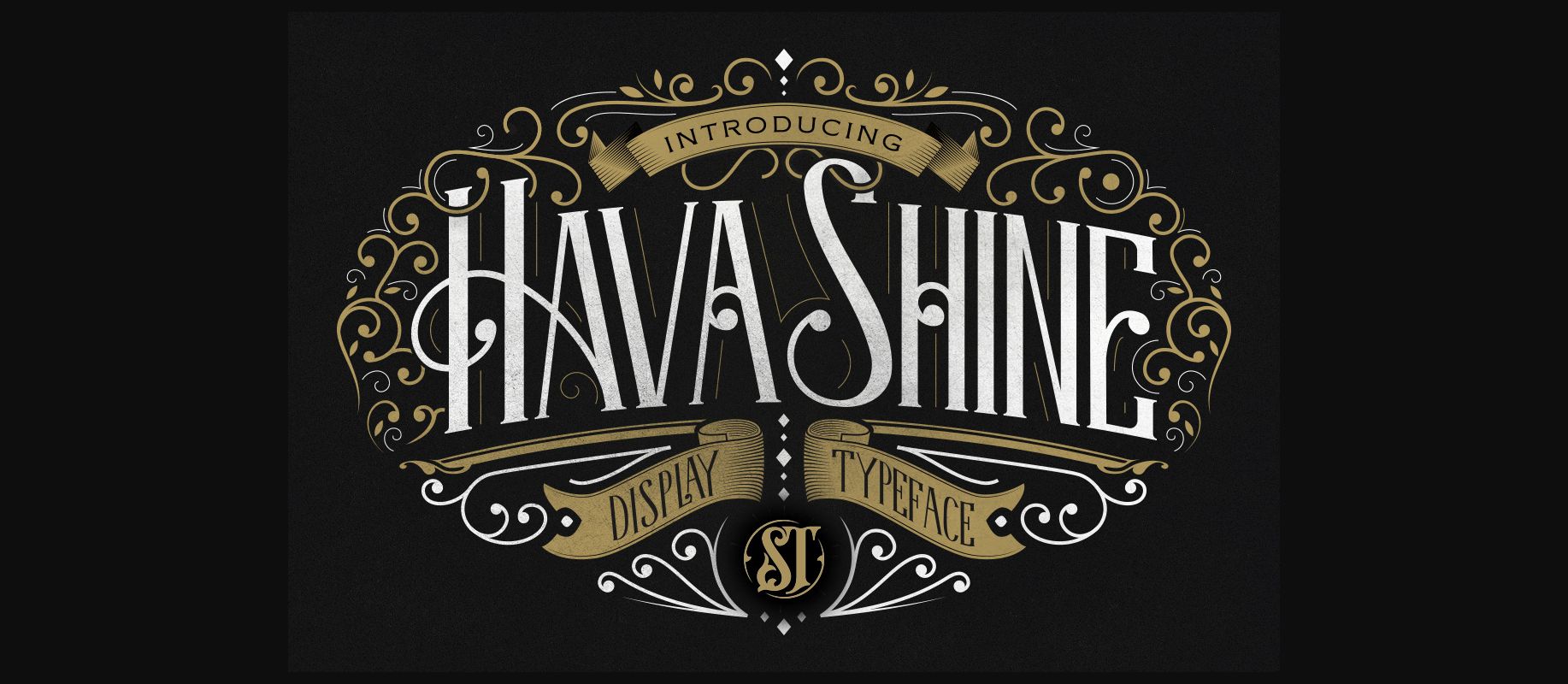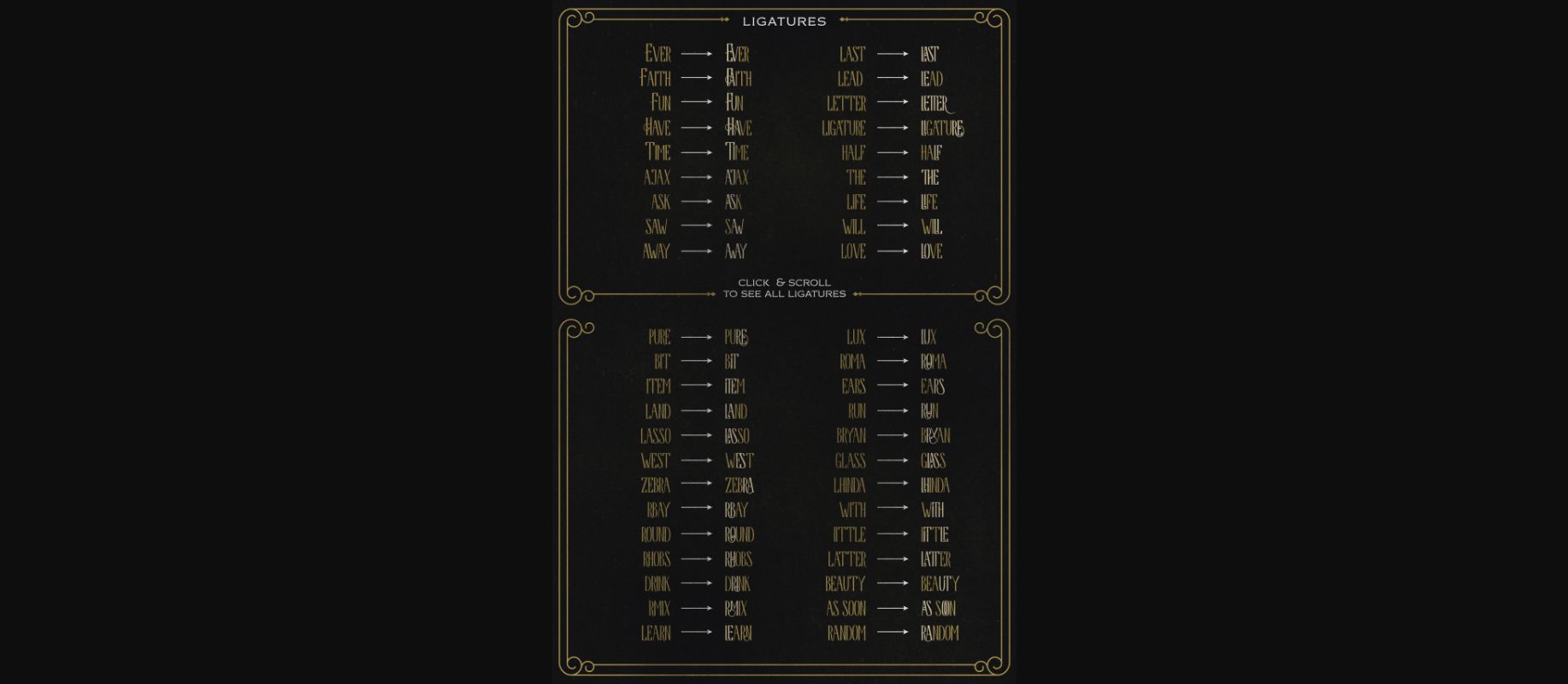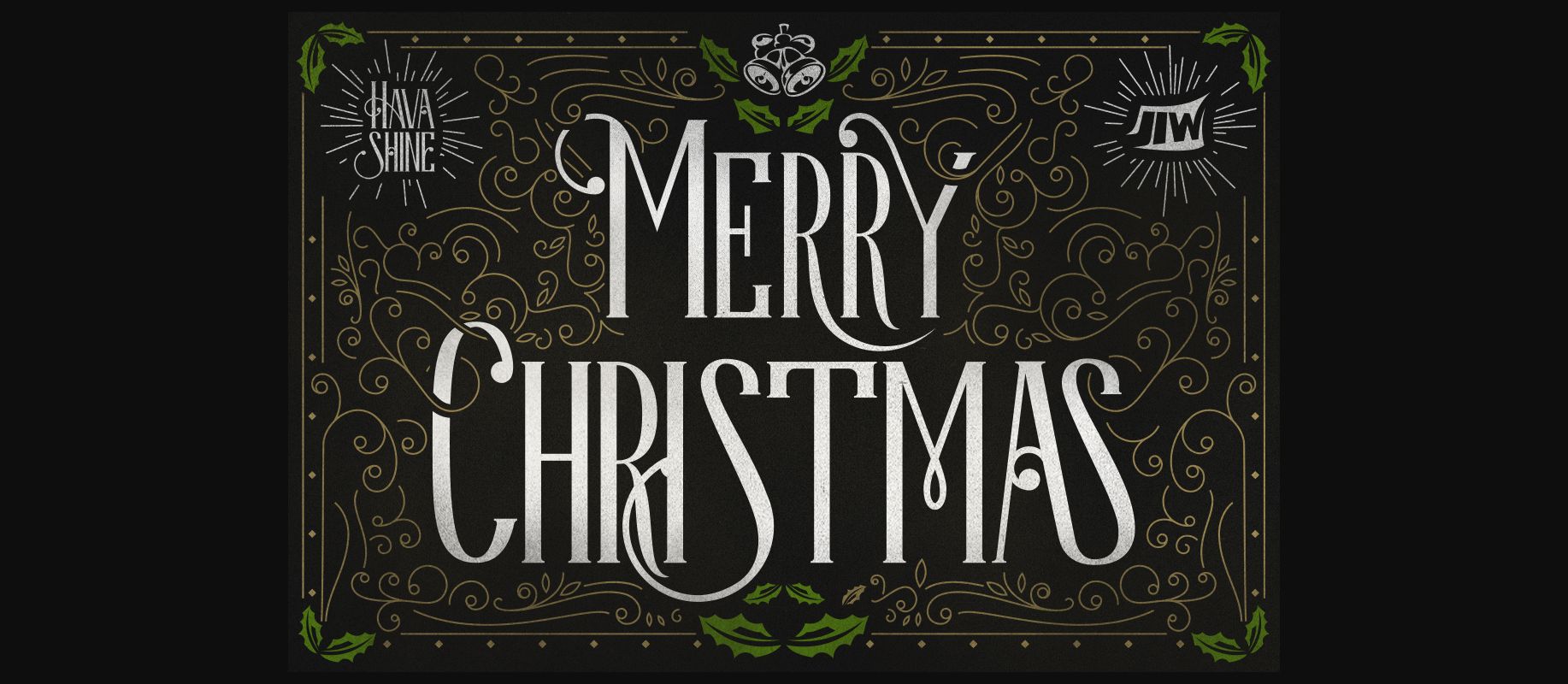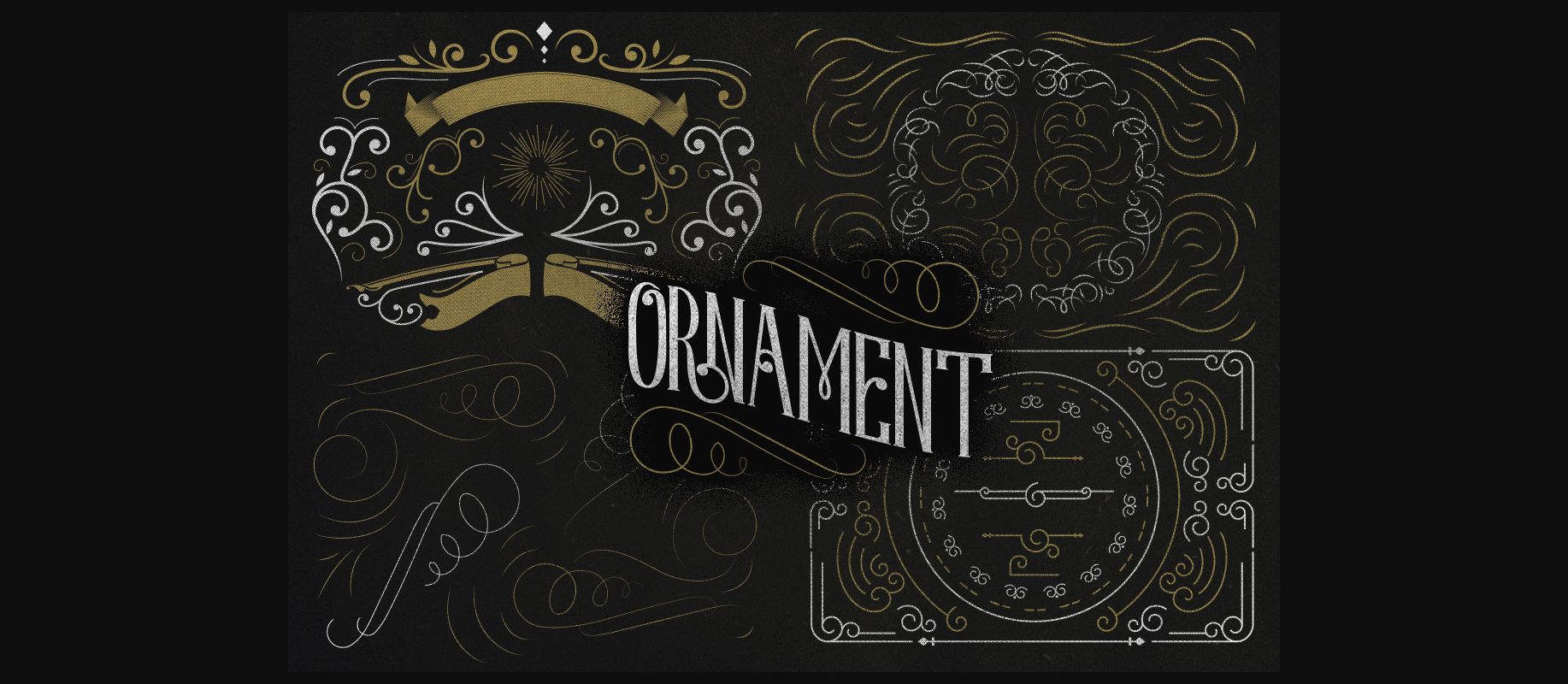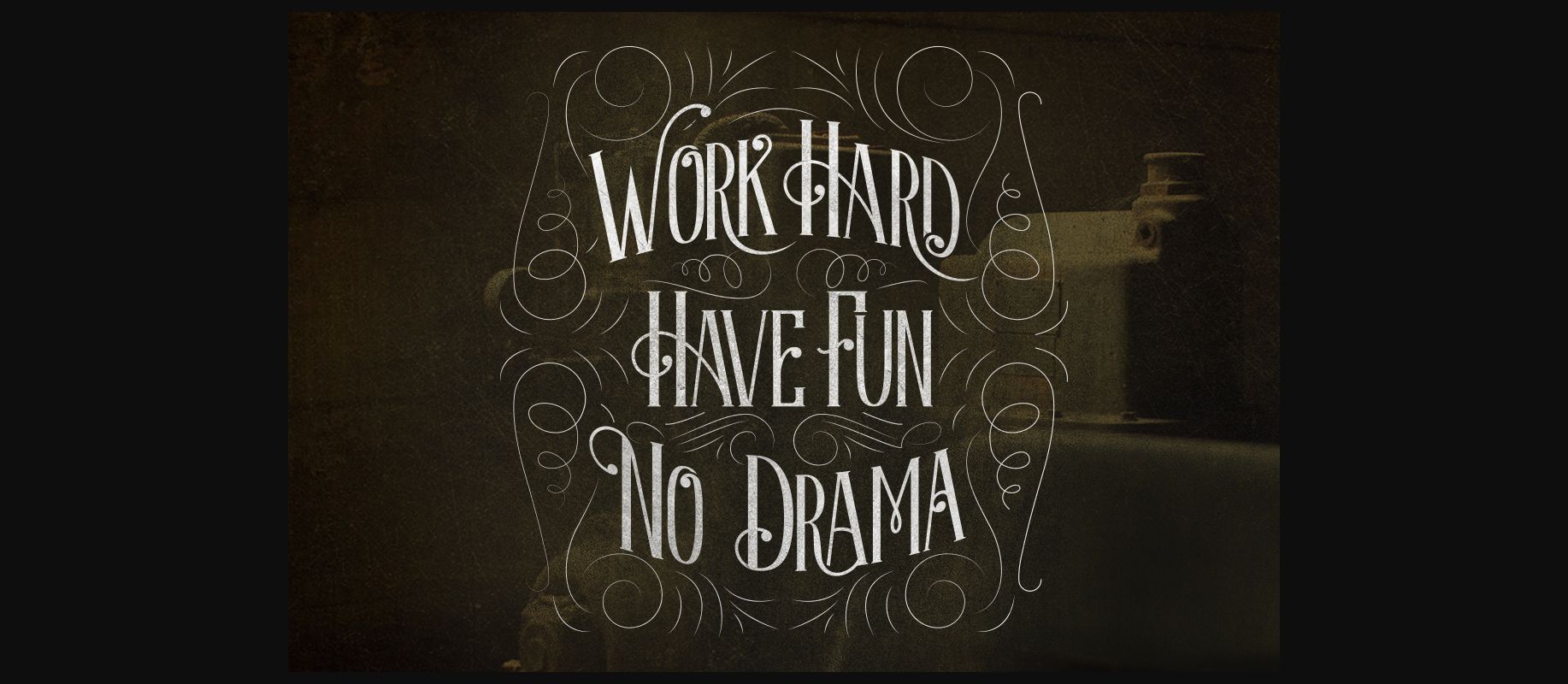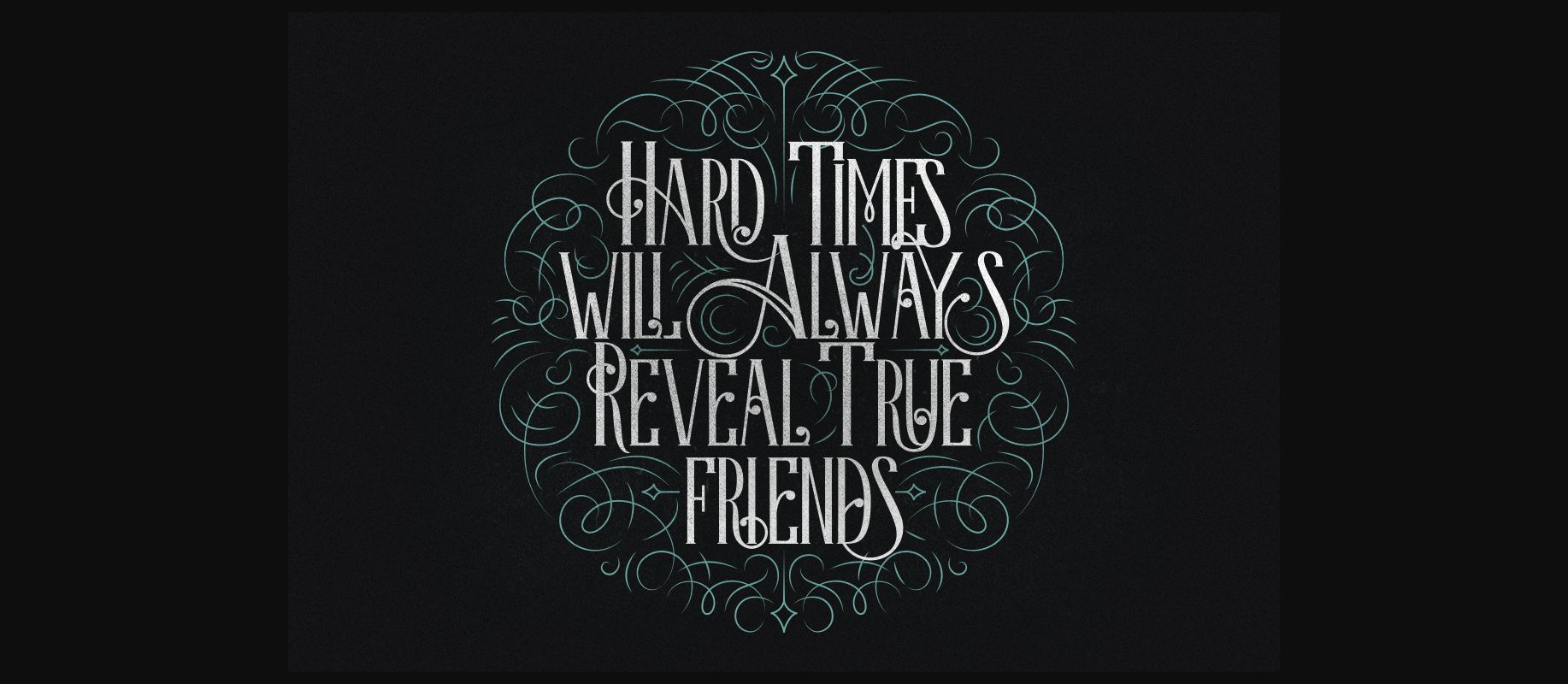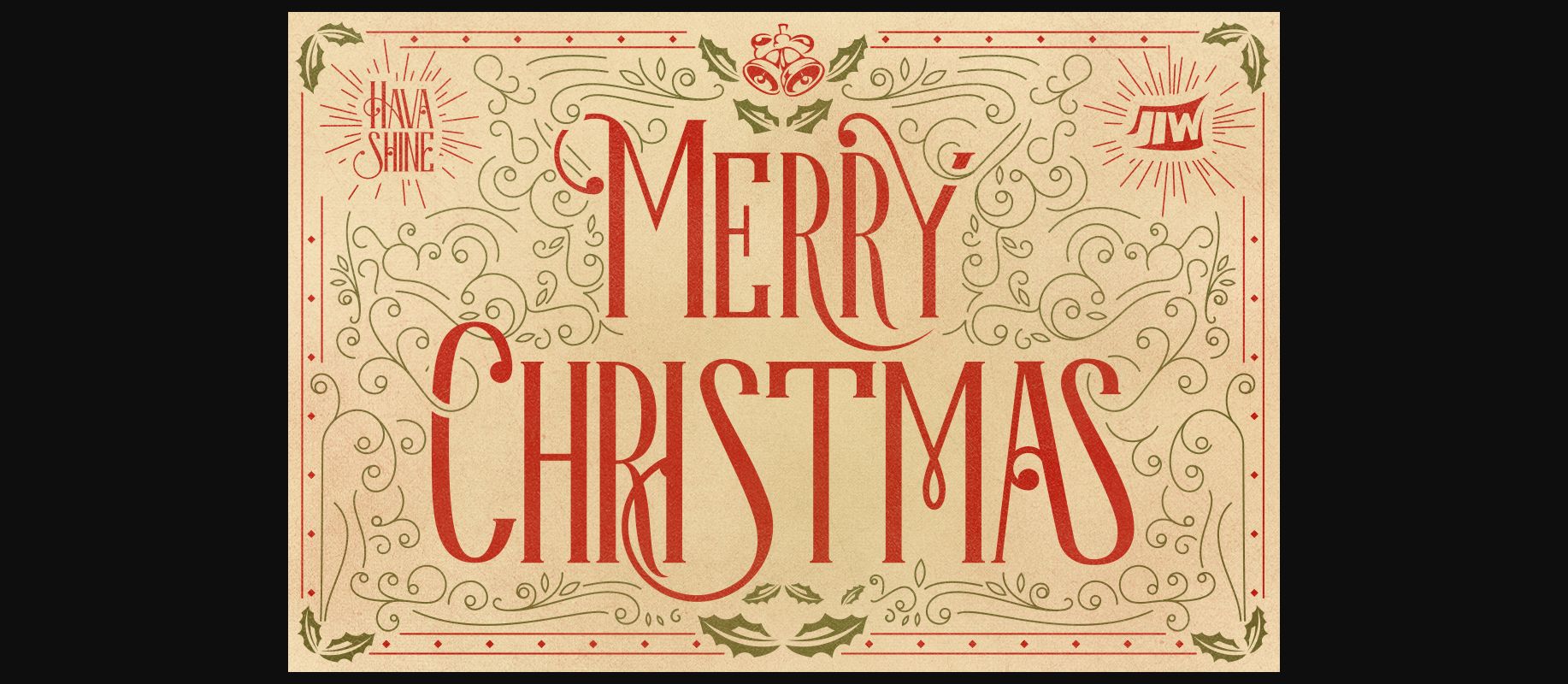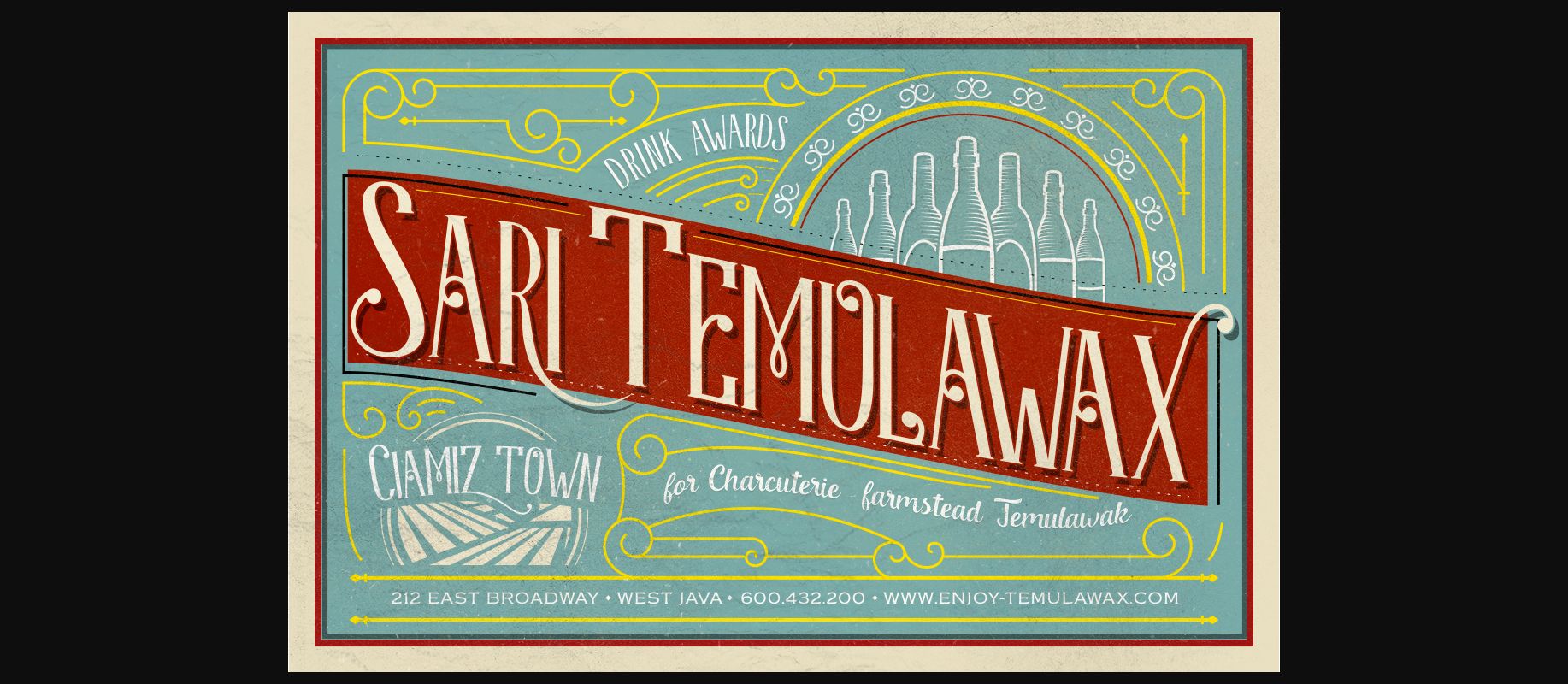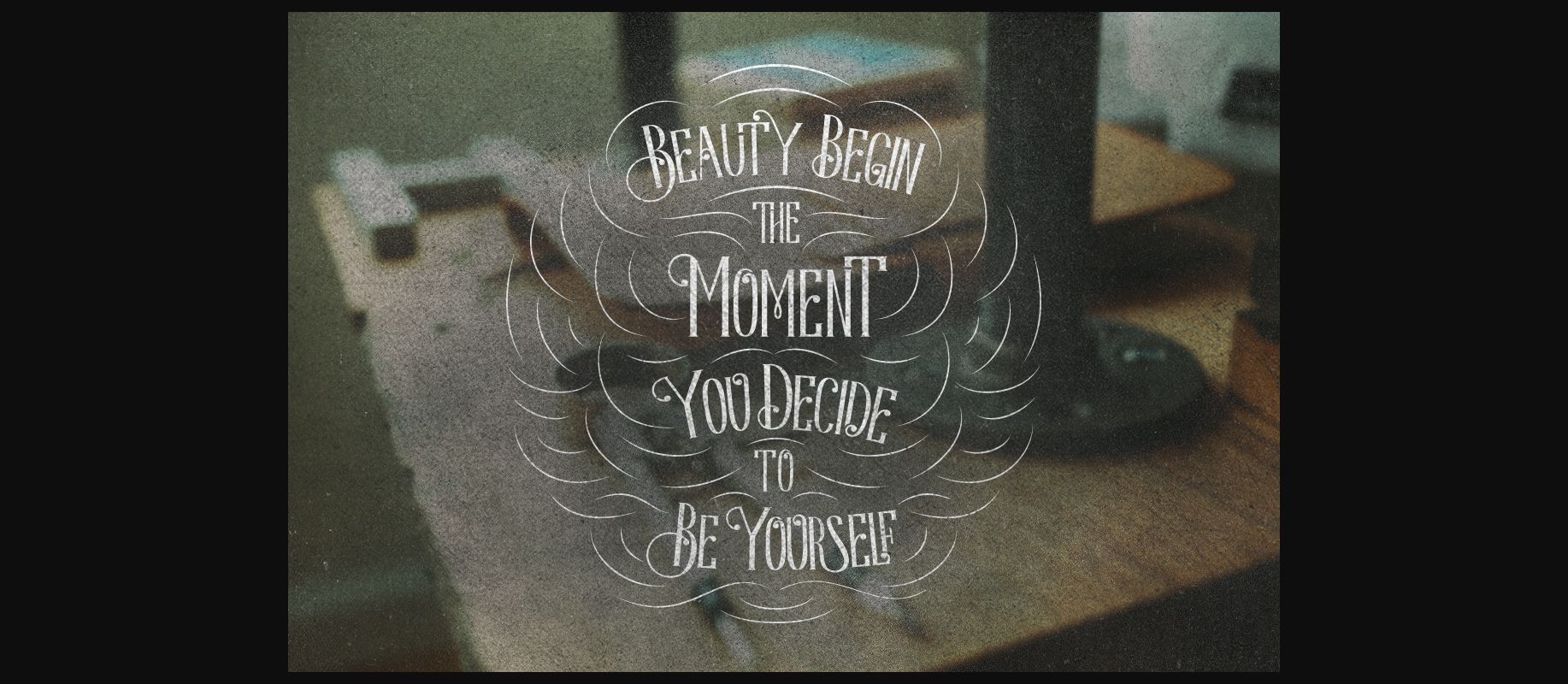
Hava Shine Font
About Hava Shine Font
Inspired by Victorian style and Art Deco sensibilities, Hava Shine is the new, definitive decorative font. Hava Shine reads well, has character alternates, and can give your designs an unparalleled luxurious feel.